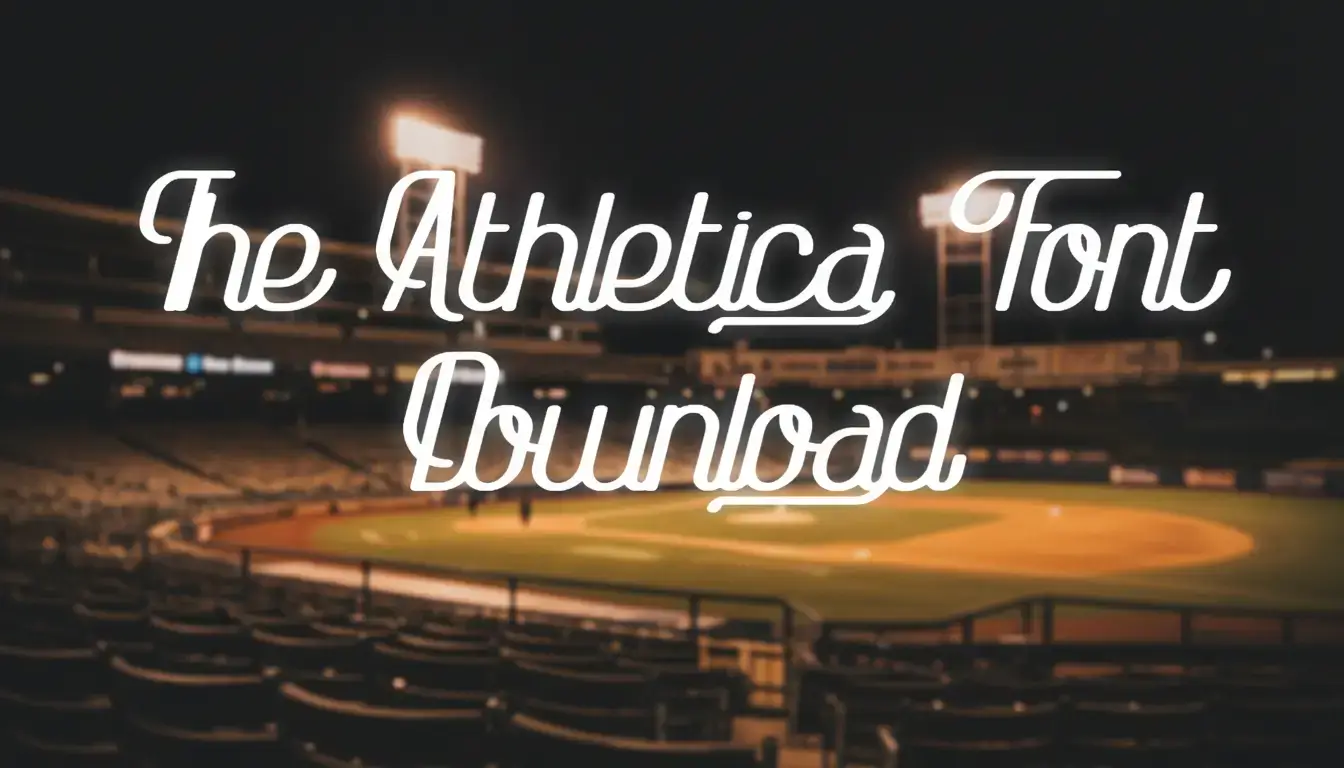
The Athletica Font
The Athletica
The Athletica is a script font made by Leonard Posavec – Leosupply.co. It has that hand-lettered, flowing feel people look for when regular type seems too stiff. It's a free download, and you can try it with your own text in the preview above first.
What You Can Type With The Athletica
With complete upper and lowercase letters and all ten digits, The Athletica is ready for real wording, not just a single headline. Everyday marks like ? and @ are there too. There are no accented letters like é or ñ, so it's best kept to English text.
Where The Athletica Works Best
Designers usually reach for fonts like The Athletica when they're making wedding invitations, logos and signature-style headings. Script fonts read best in short bursts, so keep it to names, titles and one-line quotes. Skip all caps: script capitals are drawn to start a word, not to fill one.